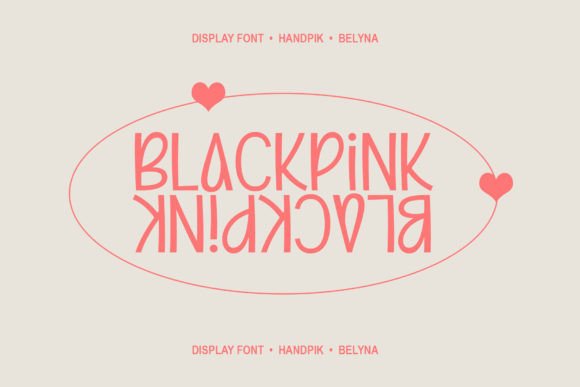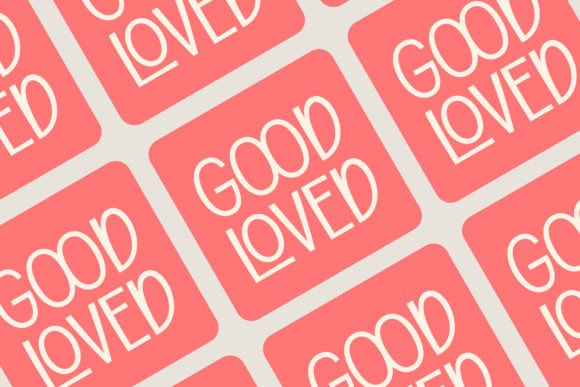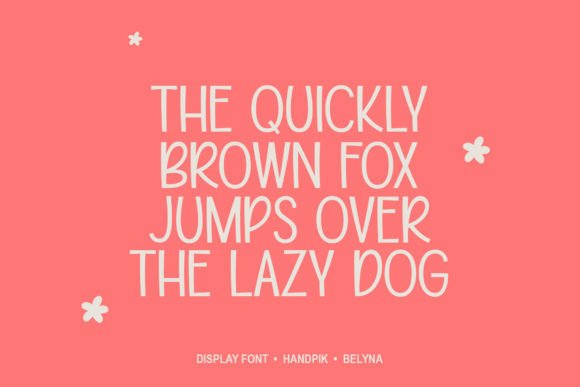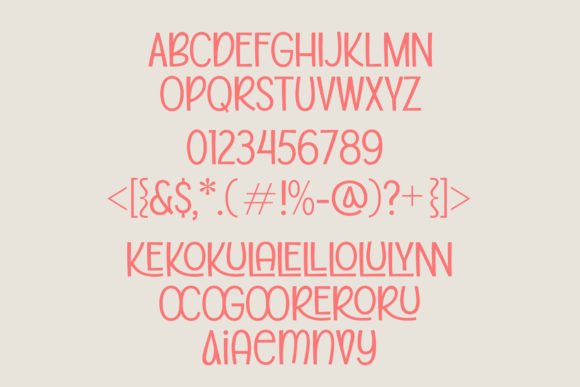
Discover the Quirky Charm of Belyna Font
Have you ever been stuck on a design project, struggling to find the perfect font to bring your vision to life? It’s a common creative conundrum, but the right font can make all the difference. For me, it was a late-night design session, staring at a blank screen, when I stumbled upon the Belyna Font. Its sweet and quirky sans-serif style immediately caught my eye.
Belyna Font is more than just a pretty face – it’s a versatile tool designed to add a touch of personality to your creative projects. Whether you’re working on a branding project, designing a website, or crafting a social media campaign, Belyna Font is sure to bring a smile to your audience’s face.
As a designer, you know how valuable it is to have a reliable font that can elevate your work. Belyna Font is that secret ingredient that can take your designs from meh to mesmerizing. So, what are you waiting for? Add Belyna Font to your creative arsenal and get ready to unleash your inner designer!
Belyna Font Key Features
- Font Family: Belyna is a sans-serif font family designed for digital use, available in 12 weights.
- Language Support: Belyna Font supports over 200 languages, making it a versatile choice for global applications.
- Unique Characteristics: Belyna Font features a clean, modern design with subtle rounded corners and a high x-height, making it highly legible in digital environments.
Belyna Font Review
As a designer, I recently had the opportunity to work with the Belyna font. Here’s my honest review:
- Elegant and modern design: Belyna’s sleek lines and refined curves make it perfect for modern designs, from corporate branding to digital interfaces.
- Versatile font: Belyna comes in multiple weights, from light to bold, making it easy to use in a variety of contexts, from headings to body text.
- High legibility: The font is well-designed for readability, making it a great choice for long blocks of text.
- Limited language support: Belyna is a Latin-based font, which may limit its use for non-Latin languages.
- May not be suitable for text-heavy designs: While Belyna is highly legible, it may not be the best choice for very text-heavy designs, where a more condensed font may be preferred.
Belyna is a solid choice for designers looking for a modern, elegant font. While it may have some limitations, its versatility and high legibility make it a great addition to any design toolkit.
Tips: Use the Belyna font to create elegant and sophisticated designs, especially for wedding invitations, branding materials, and formal documents.
Tips: Use the Belyna font to add a touch of elegance and sophistication to your designs, especially for editorial layouts, brochures, and posters.
Tips: Use the Belyna font to add a touch of elegance and sophistication to your presentations and documents, especially for formal reports, proposals, and business materials.
The Belyna Font is commonly used for:
- Branding materials and logos
- Formal documents and reports
- Editorial layouts and publications